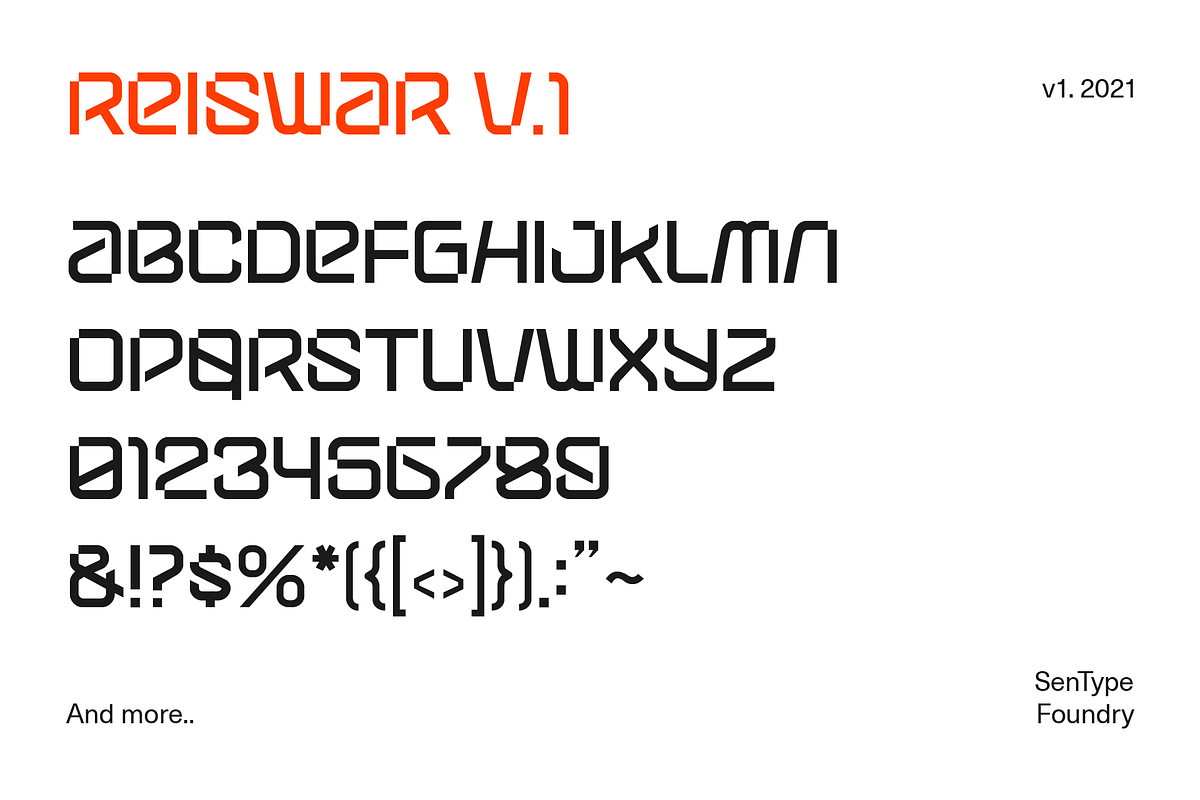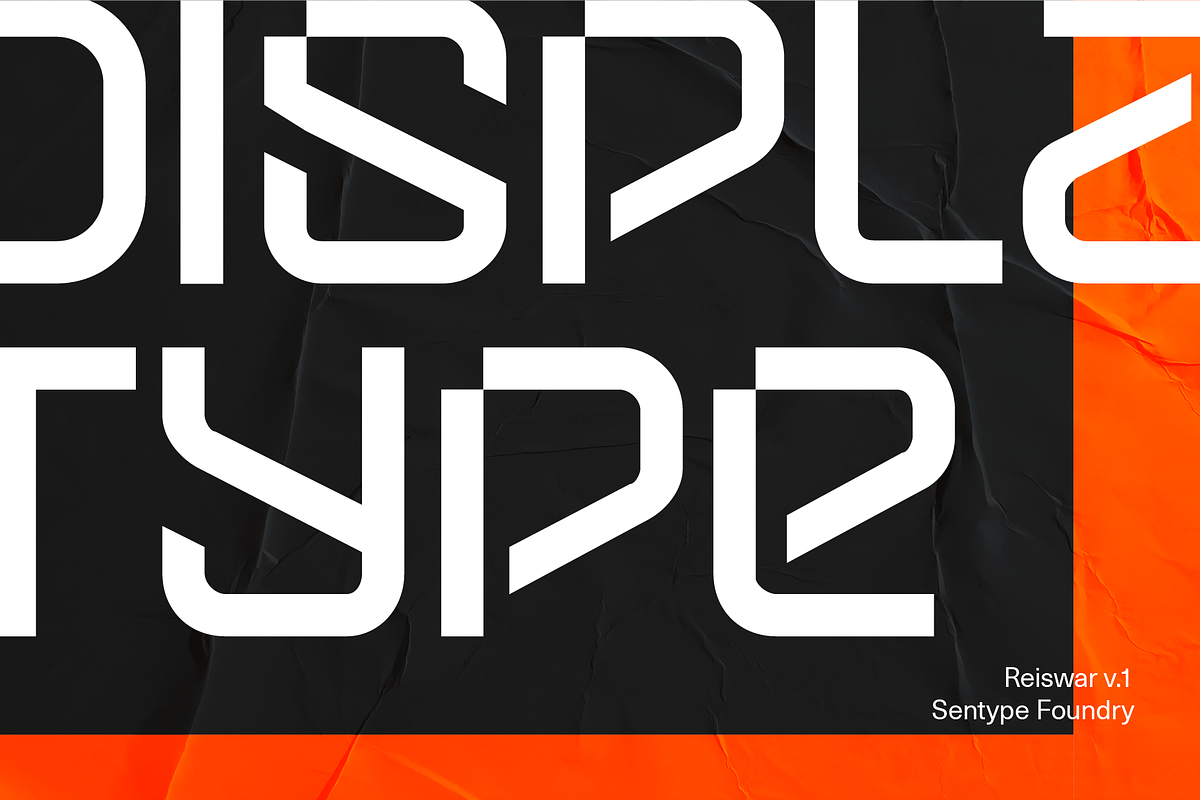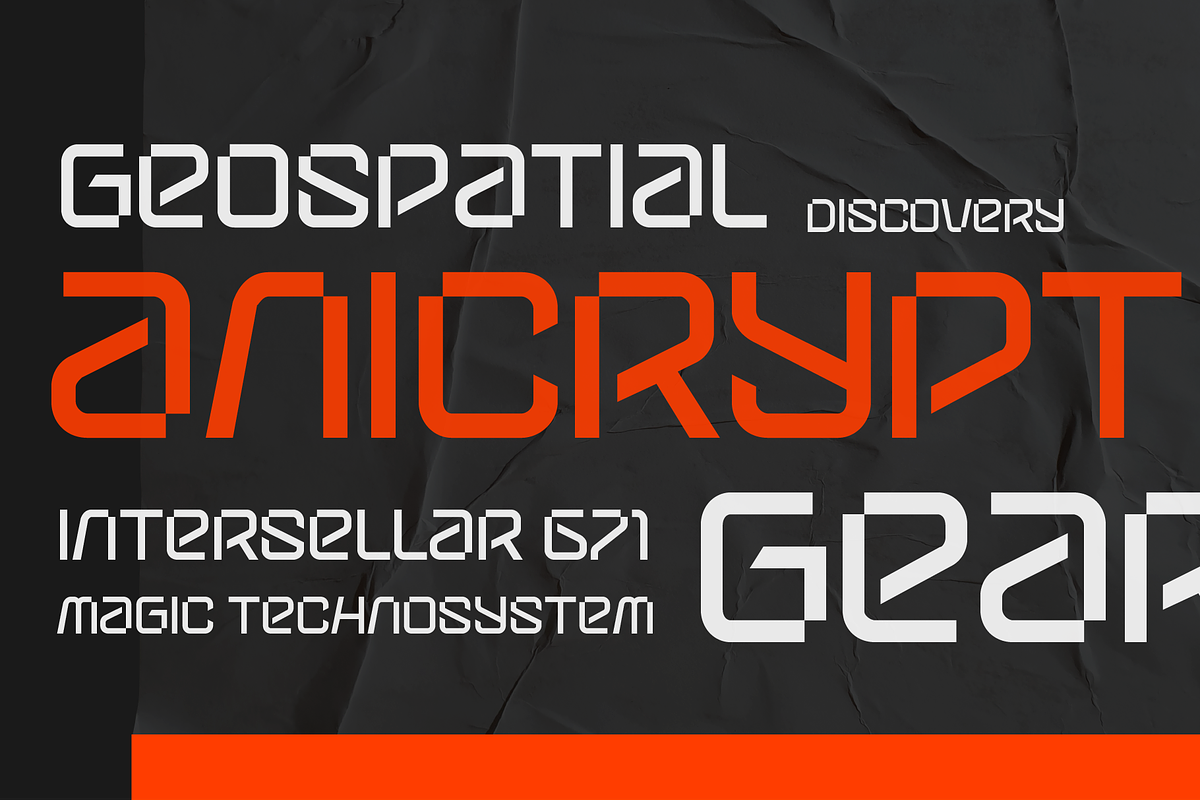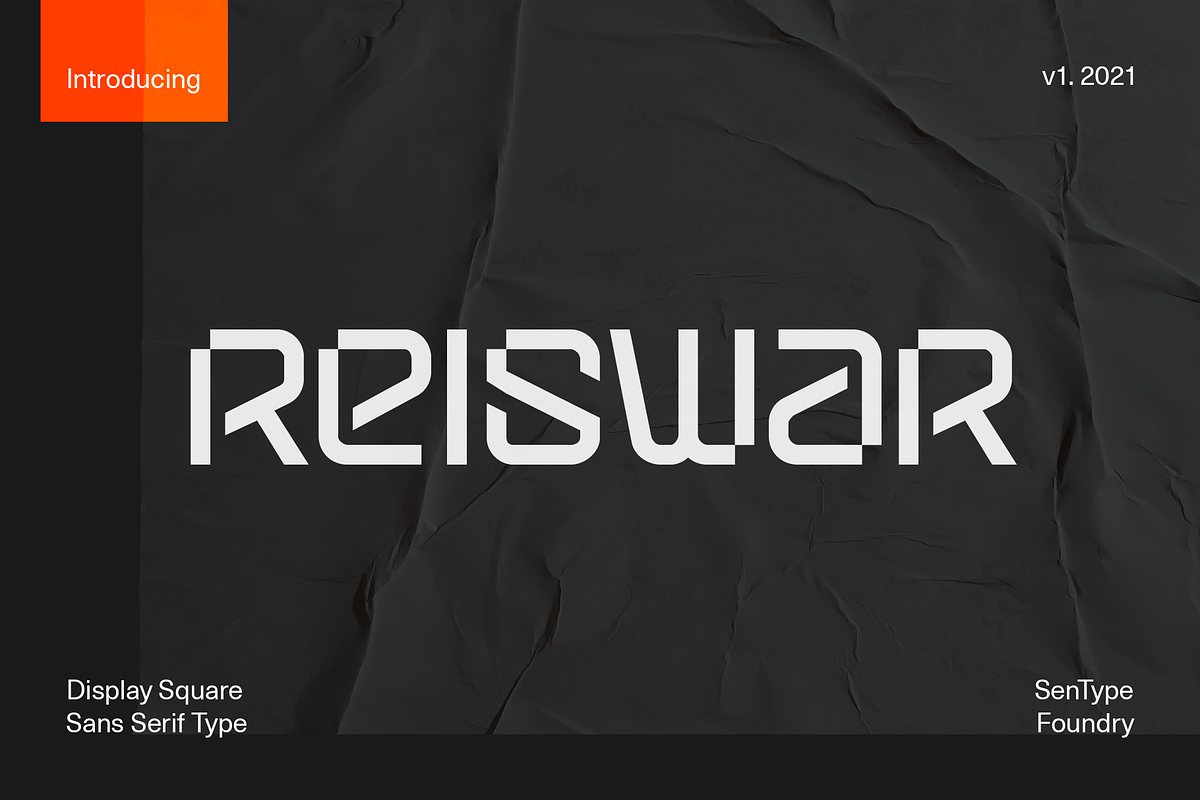
Reiswar - Display Square Sans Serif
Reiswar is a display type font that using basic form rounded corner with pixel corner cut effect. Reiswar is techno, sporty and modern type that suit for your logo design project and also best for H1 text title for poster, website, and animation